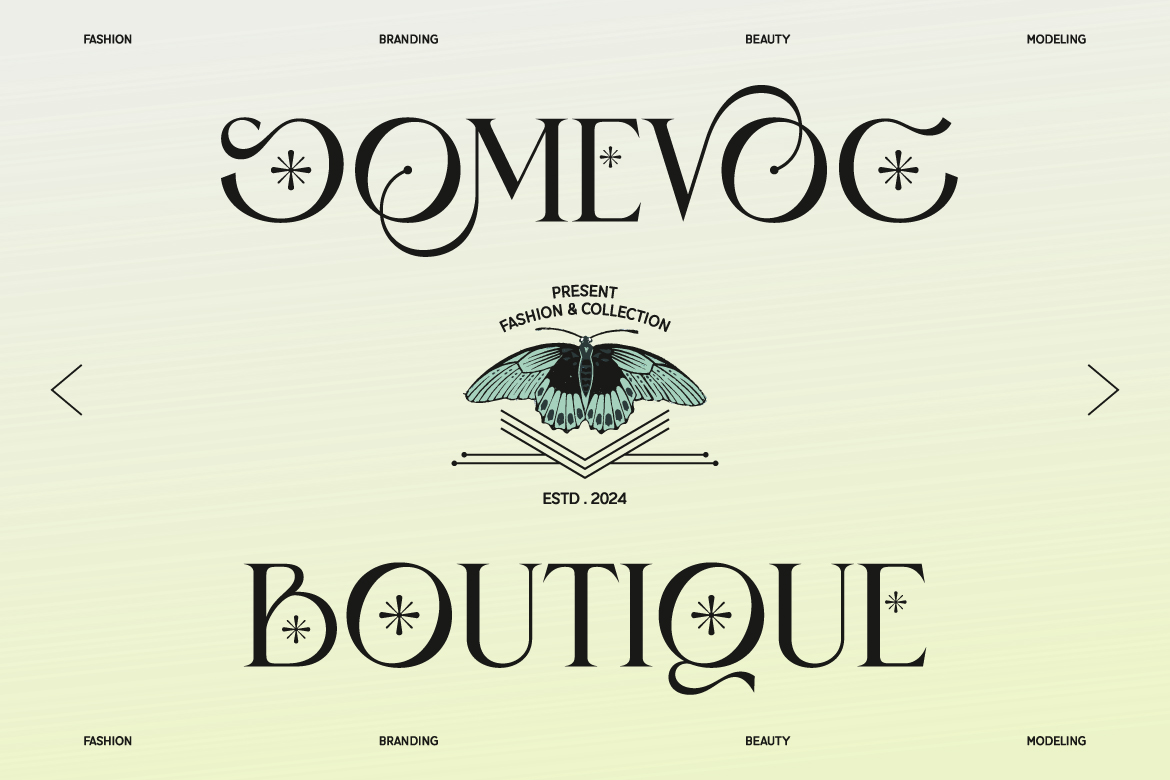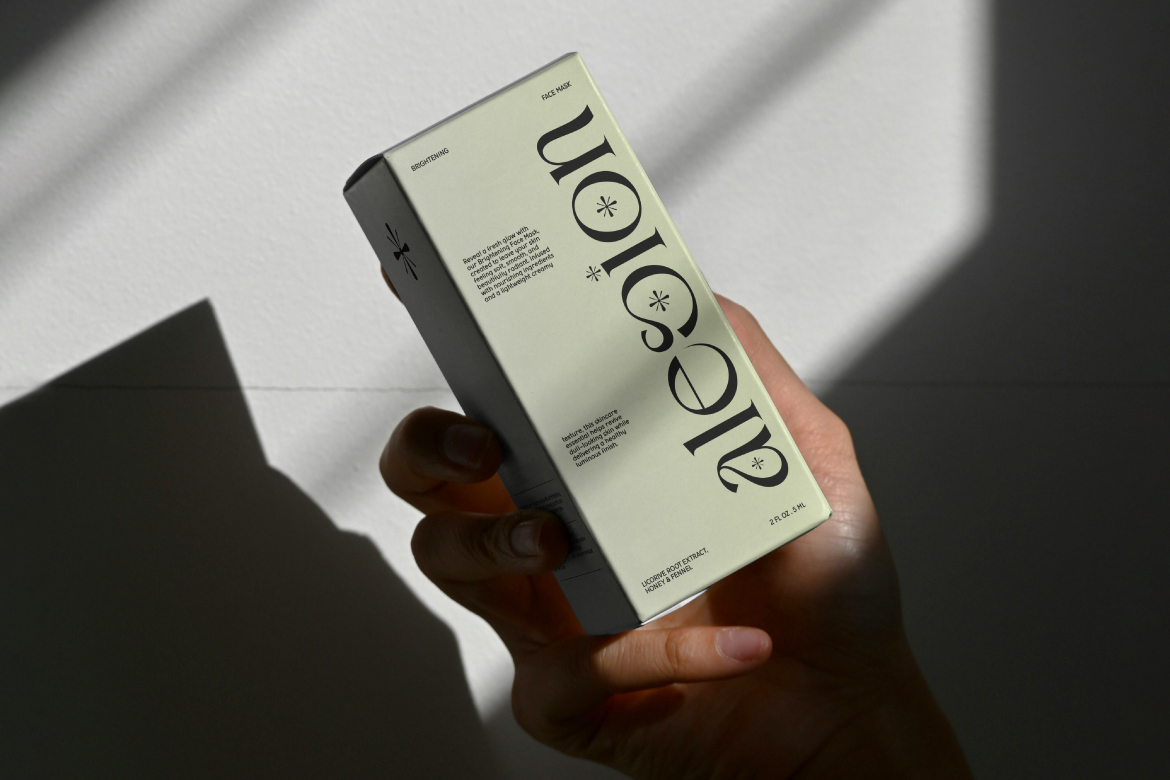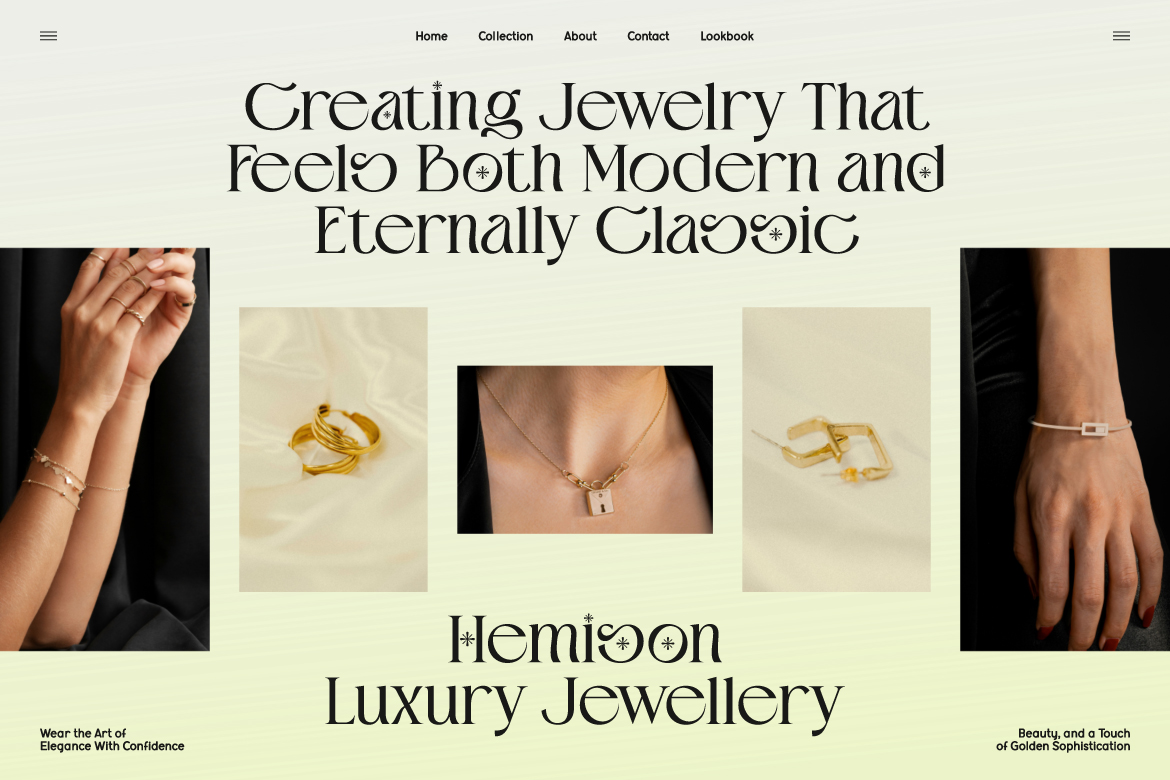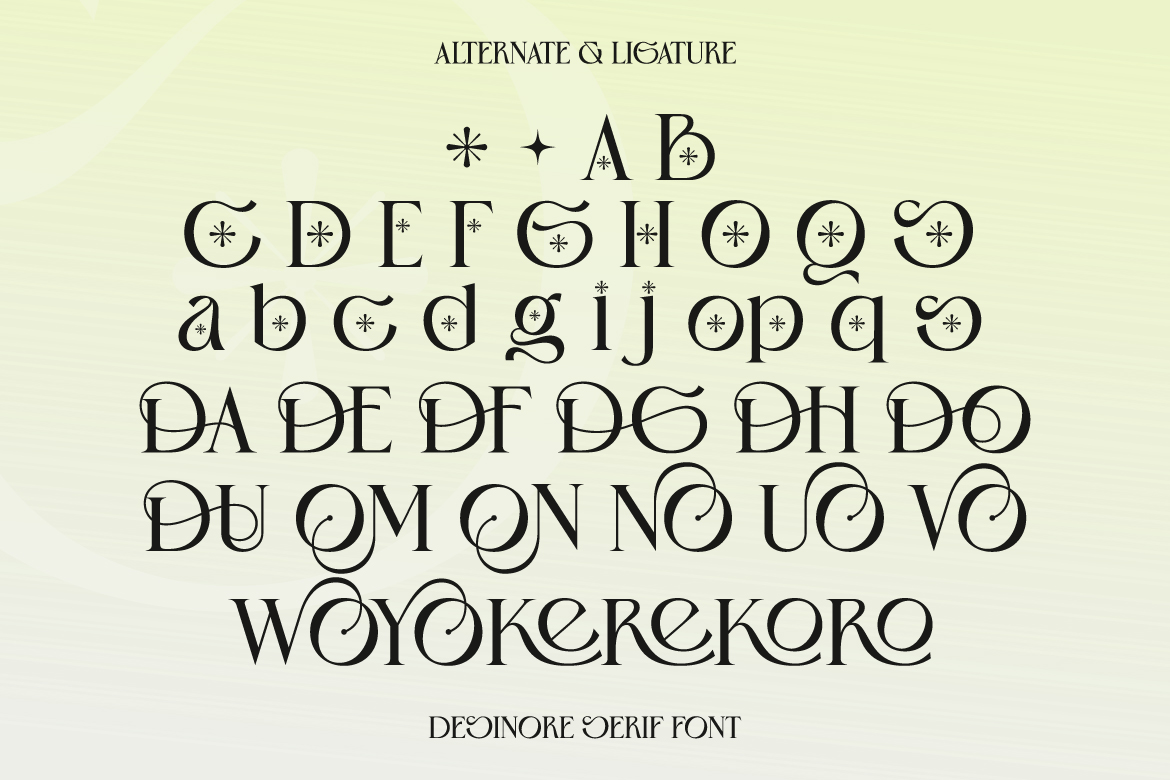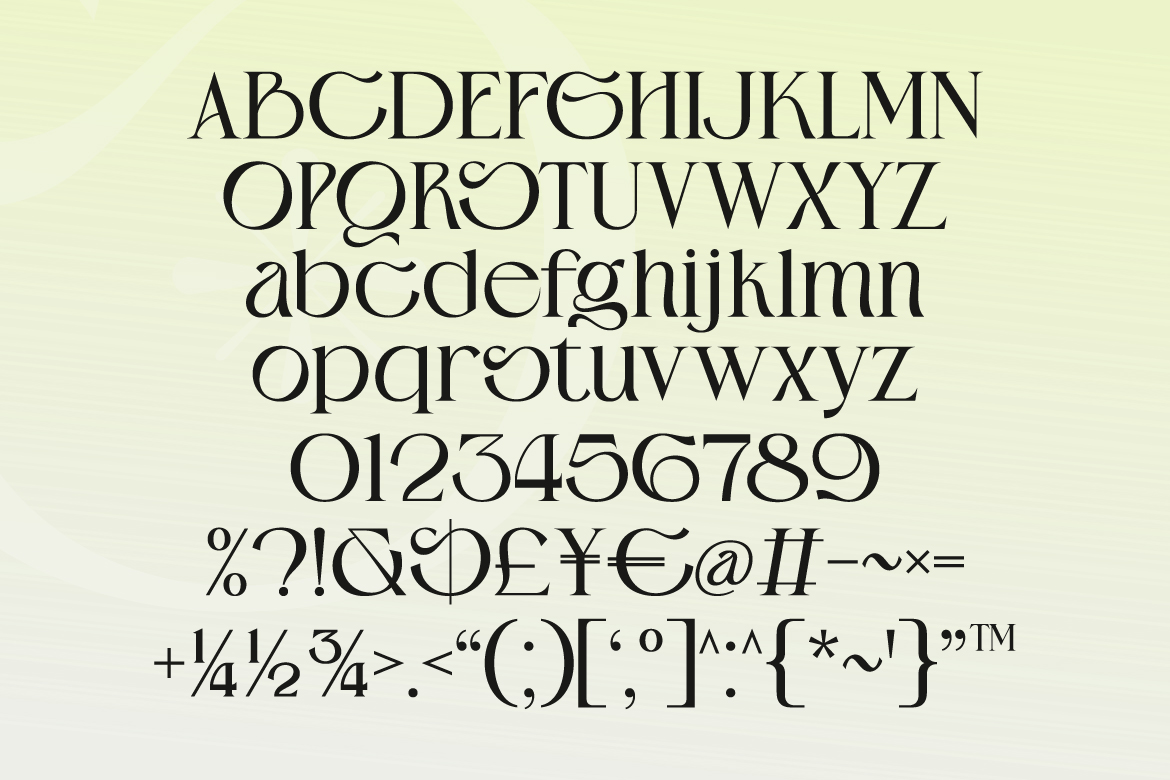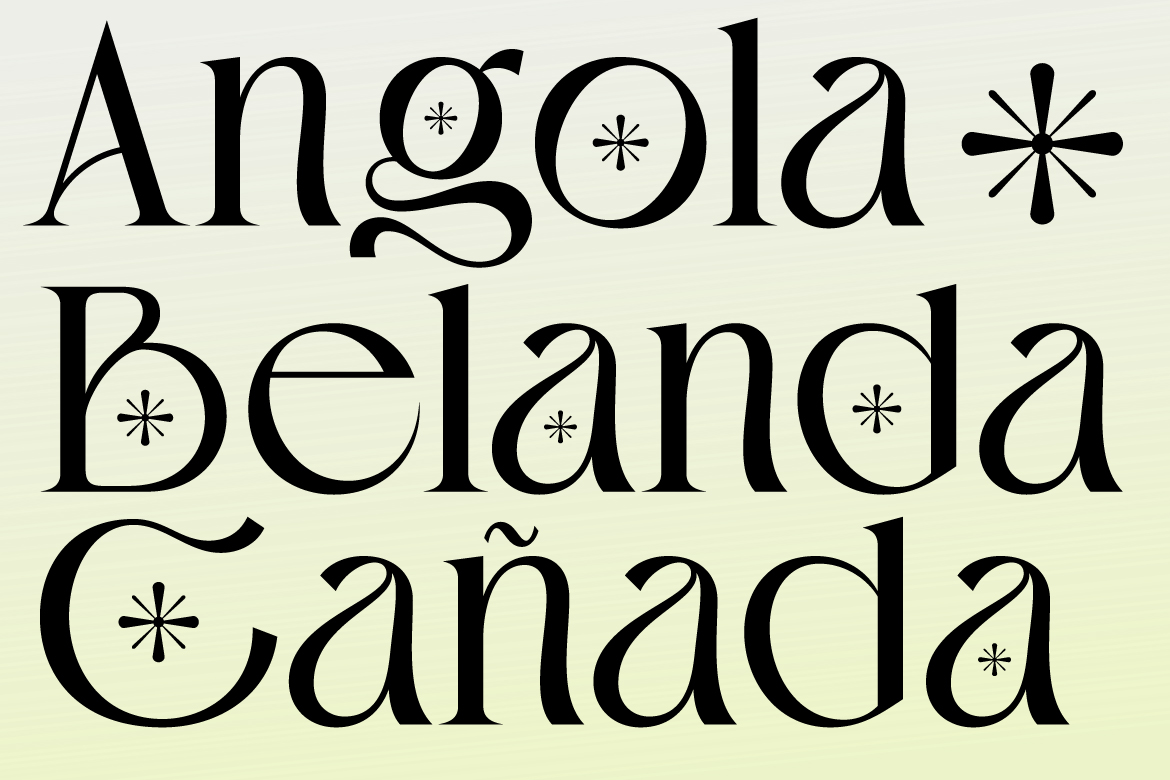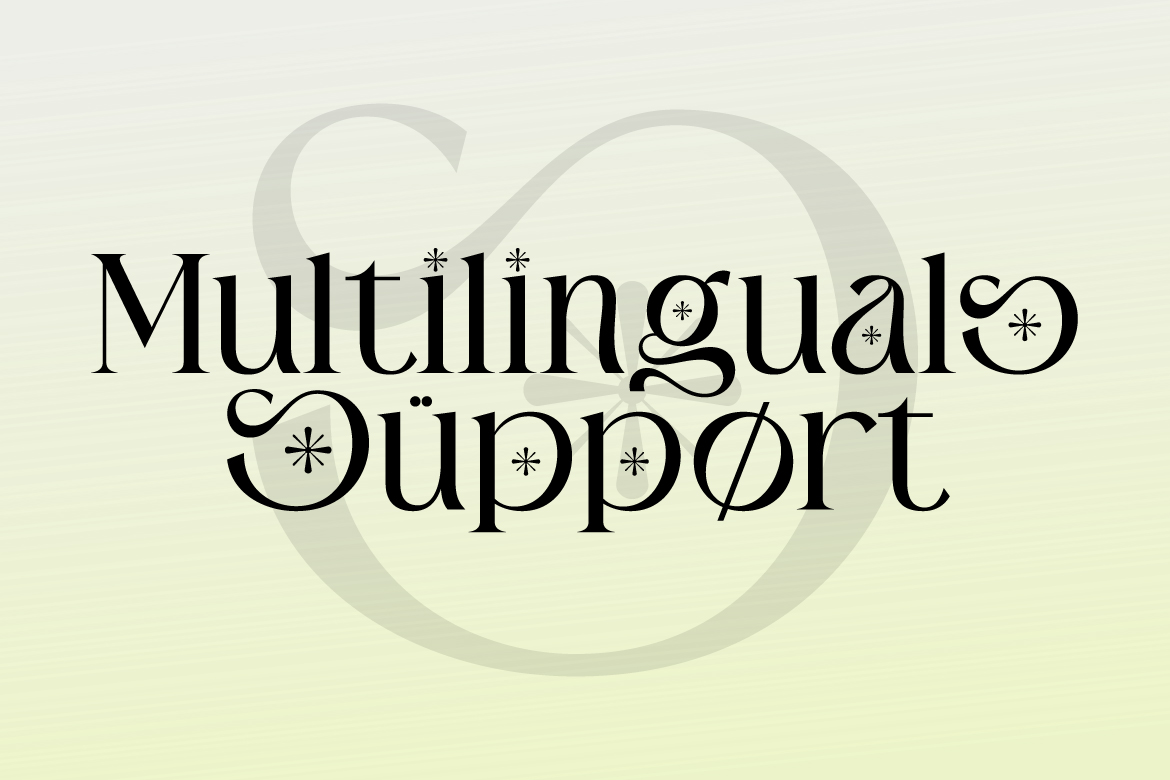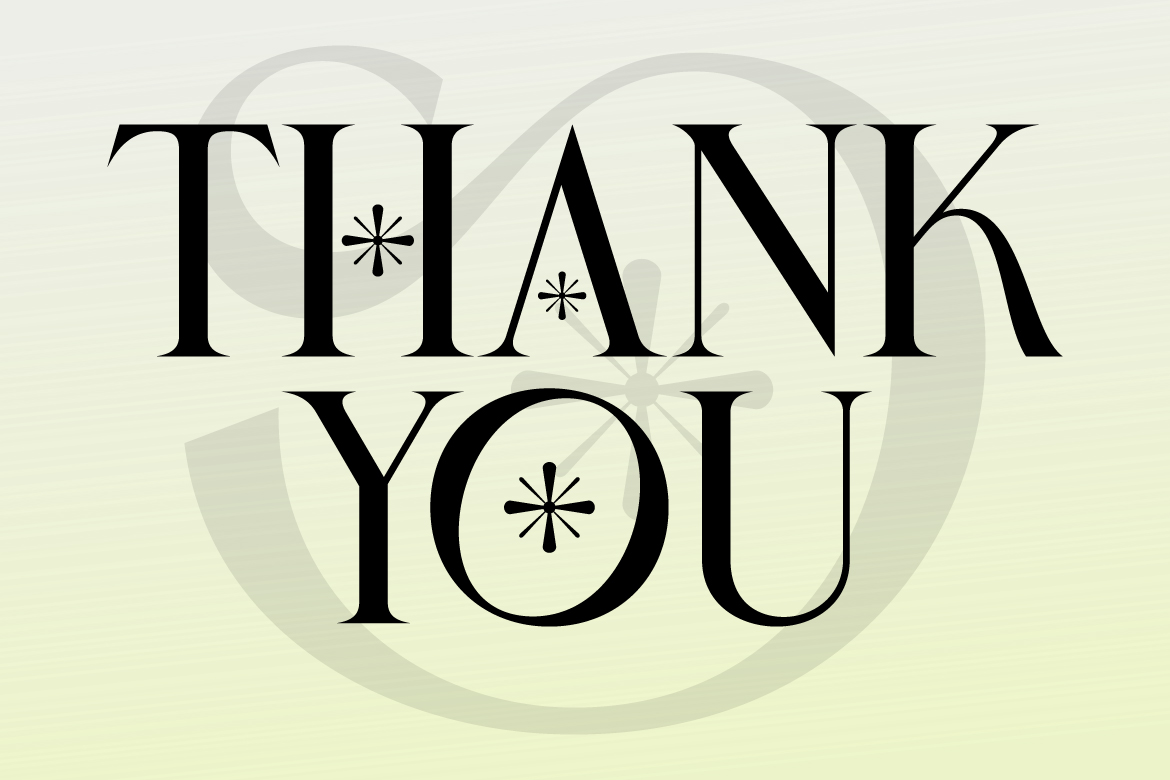
Desinore – Elegant Luxury Serif Font
About Desinore – Elegant Luxury Serif Font
Desinore is an elegant luxury serif font crafted for modern branding and sophisticated visual identities. Featuring stylish ligatures, graceful alternates, and high-contrast letterforms, this typeface blends timeless elegance with a contemporary fashion aesthetic.
Perfect for luxury branding, boutique logos, beauty packaging, editorial layouts, jewelry branding, wedding designs, social media graphics, and premium product packaging. Desinore delivers a refined and artistic look that stands out beautifully in both print and digital projects.
With multilingual support, decorative alternates, and unique stylistic details, this font is ideal for designers seeking a classy and fashionable serif typeface with a modern editorial feel.
• Ligature & Stylistic alternate
Perfect For:
• Fashion Branding
• Beauty & Cosmetic Packaging
• Jewelry Logos
• Boutique Identity
• Magazine & Editorial Design
• Wedding Invitation
• Luxury Product Design
• Social Media Templates